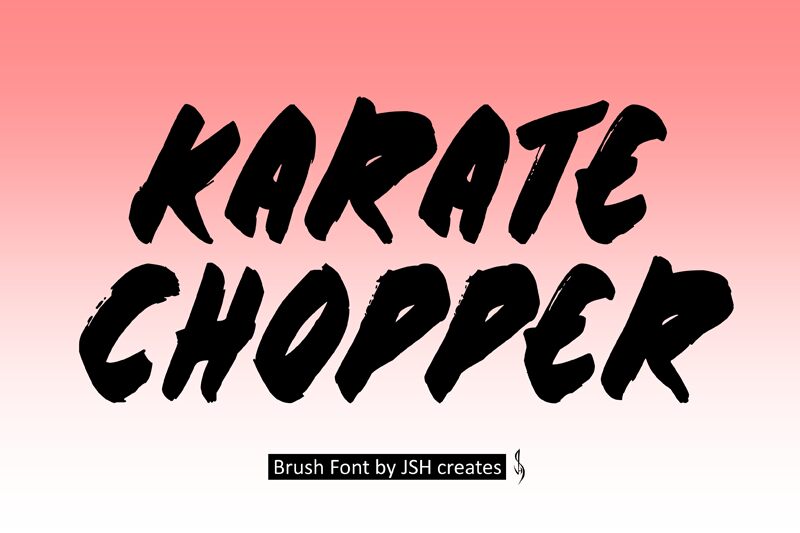
Karate Chopper font, crafted by JSH creates, is a bold brush-style font that commands attention. Its condensed form and vigorous strokes lend an energetic flair, perfect for making impact in your designs. This dynamic free font is ideal for eye-catching headlines, posters, and logos where a strong and lively presence is needed. With its unique style, Karate Chopper font stands out as a distinctive choice for projects seeking to convey intensity and creativity.